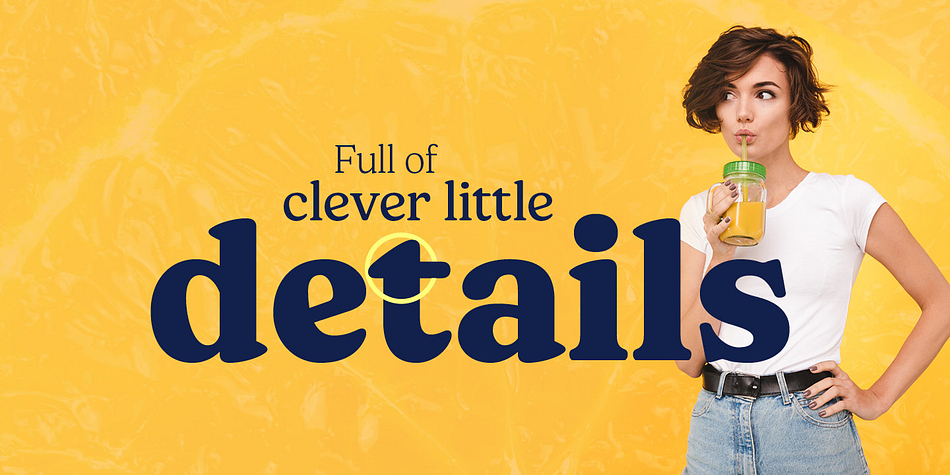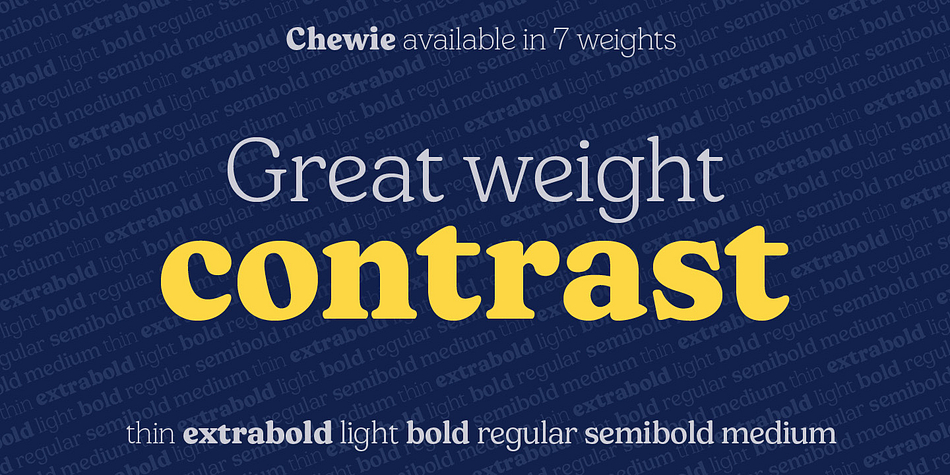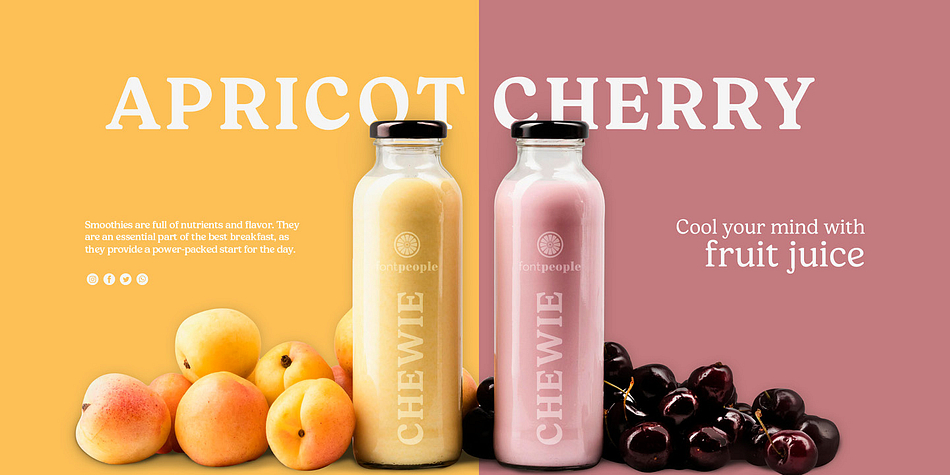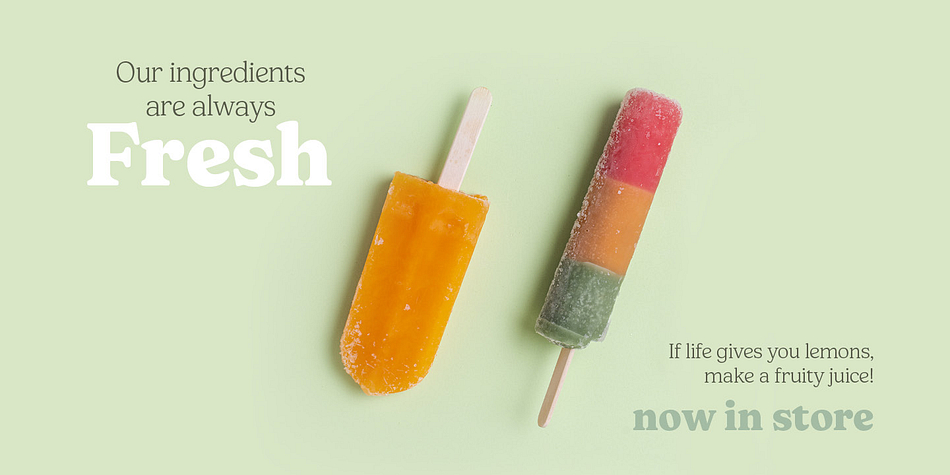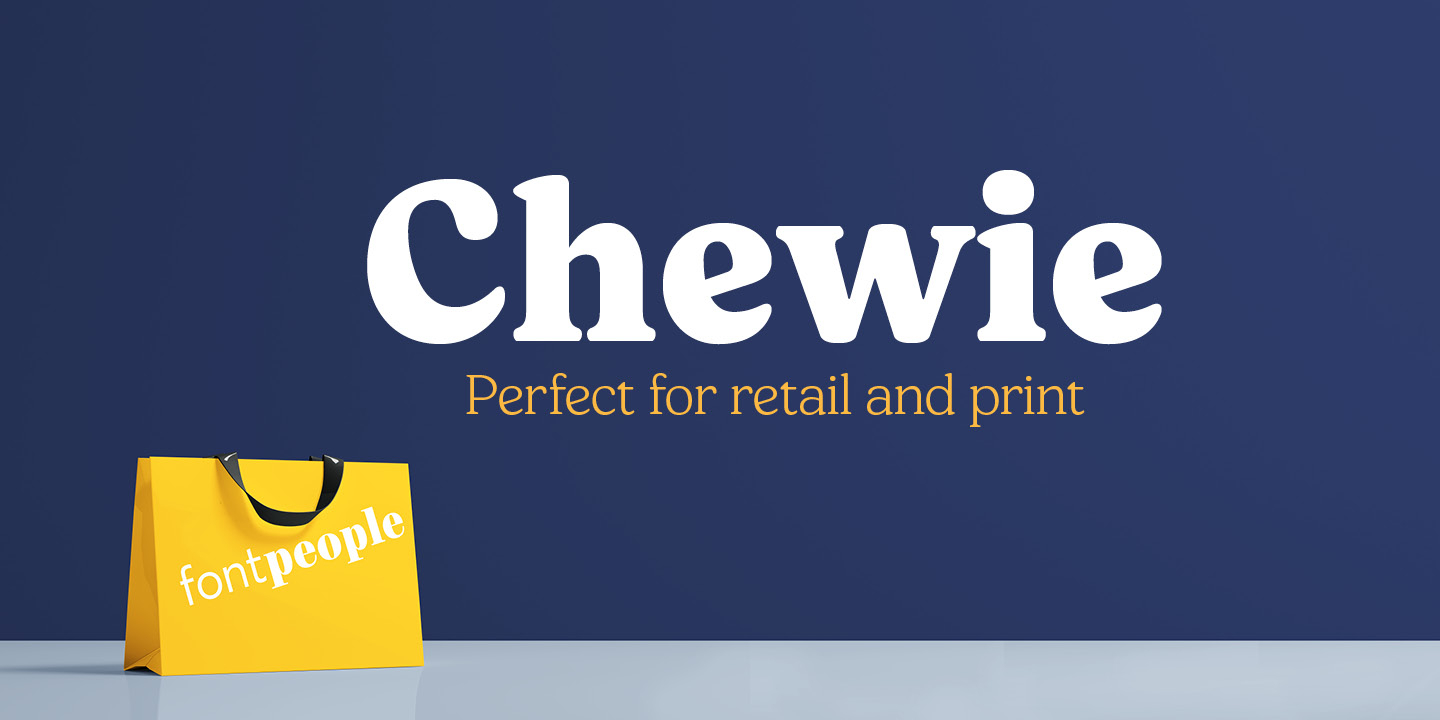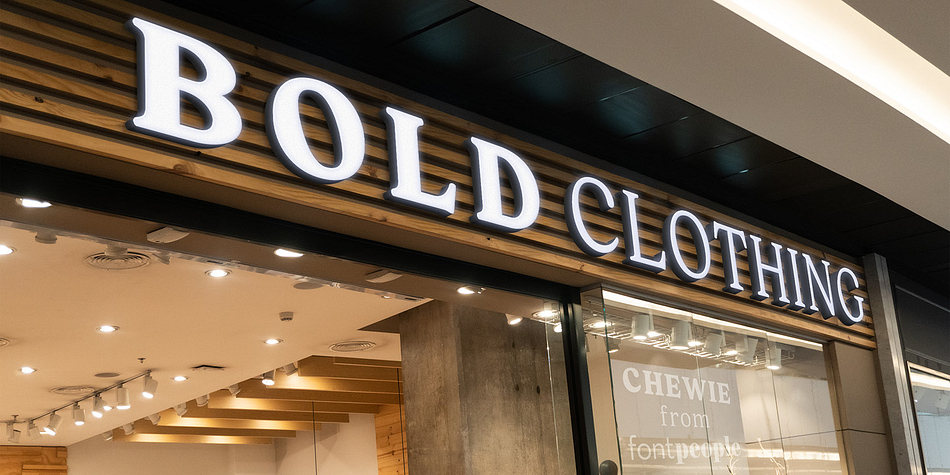
Designed by Jason Harcombe and Max Saille, Chewie is a retro and serif font family. This typeface has seven styles and was published by FontPeople.
Chewie combines a variety of ingredients from various popular 1970s typefaces such as the soft and gentle shapes found in Cooper or the fluid, angled strokes in Windsor all mixed into one single design that features familiar, yet fresh, modern flavours.
Its variety of weights provide a range of choices that will help you find the best typographic colour for your project. Lighter weights are well-suited for body text while heavier ones are ideal for high impact headlines and display.